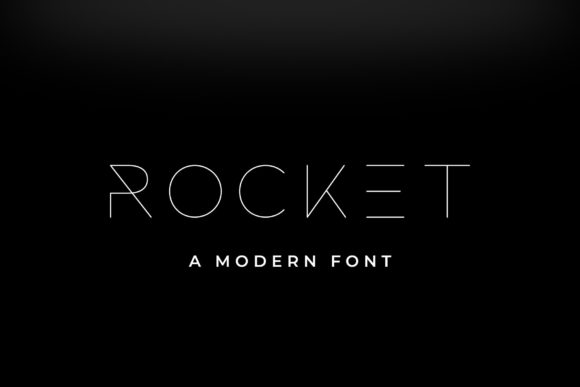
In a digital landscape where mediocrity reigns supreme, where fonts conform to the mundane, there exists a font that defies the ordinary - Rocket Wildness. This typographic masterpiece transcends the boundaries of the mundane, propelling you into a realm of visual ecstasy. Each letterform exudes a distinct personality, a captivating charm that dances before your eyes.
With Rocket Wildness, your designs will radiate an aura of innovation and progress. Its futuristic vibe breathes life into your creations, transforming them into portals to uncharted territories. Embrace the power of Rocket Wildness and watch as your designs metamorphose into captivating expressions of your boundless imagination.
Rocket Wildness is more than just a font; it's a gateway to a new dimension of visual storytelling. Whether you're crafting mobile applications that push the boundaries of user experience or designing websites that leave an indelible mark on your audience, Rocket Wildness will elevate your creations to unprecedented heights. Let your designs soar on the wings of Rocket Wildness and leave your audience spellbound by the sheer brilliance of your visual prowess.
Rocket Wildness is a font that ignites the fire of creativity, a catalyst for extraordinary design. Its sleek lines and captivating curves possess an inherent allure, drawing the eye and demanding attention. Embark on a journey of visual exploration with Rocket Wildness as your steadfast companion. Witness the transformation of your designs as they transcend the ordinary and emerge as beacons of ingenuity.